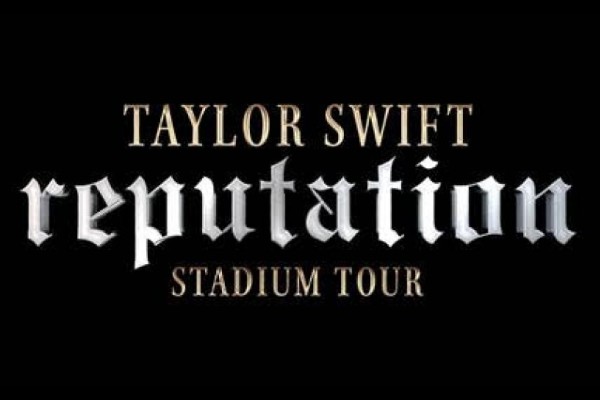
The album's cover art features the striking typeface Engravers' Old English BT Std Regular, which was designed by Morris Fuller Benton and published by Bitstream. This typeface exudes an air of antiquated elegance, with its high contrast and intricate glyph detailing that harks back to a bygone era. A free replica font called Olde English offers a similar aesthetic, for those looking to channel the same look and feel as used in the lettering on the cover of the Reputation album. I would consider both of these fonts as belonging to the Blackletter category in terms of typographic design themes. With its distinctive characters and robust weight, both of these fonts are perfect for projects requiring a touch of gravitas or vintage charm, allowing you to craft unique designs that echo the original album's logo lettering.